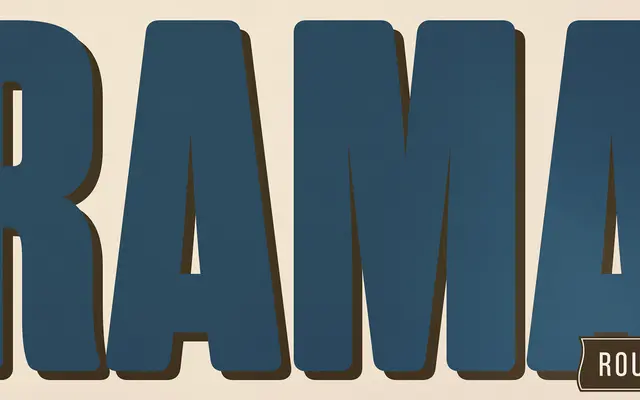
Rama Gothic Rounded specimen from Dharma Type
A condensed, rounded sans-serif drawn from 19th-century wood type, softened with rounded corners for poster and title work.
Built on the proportions of vintage American wood type, this face pairs tight condensed spacing with rounded corners to give bold display settings a warmer, more approachable quality. It ships alongside a free Gothic Extras set of borders, ornaments and frames drawn from Hamilton type catalogues, extending its utility for retro-themed layouts. A non-rounded sibling, Rama Gothic, and a slab companion, Rama Slab, complete the broader family.
A condensed sans-serif display face drawn from 19th-century wood type tradition, with rounded corners added for a softened retro aesthetic; sits firmly in the display category given its poster-oriented proportions and decorative intent.